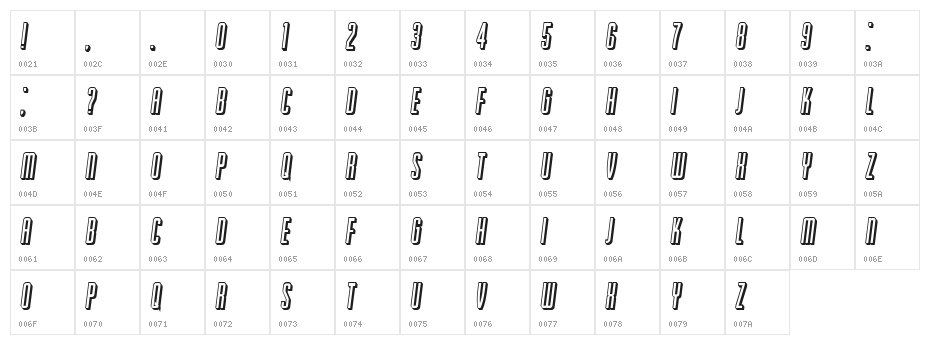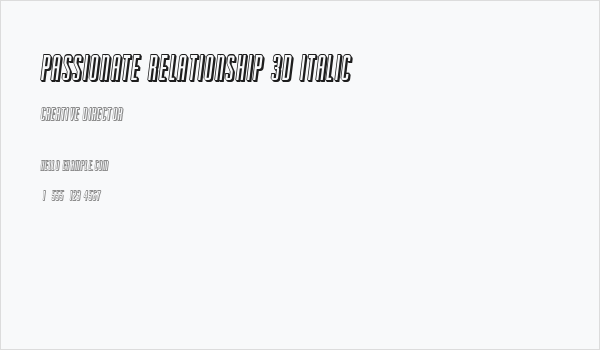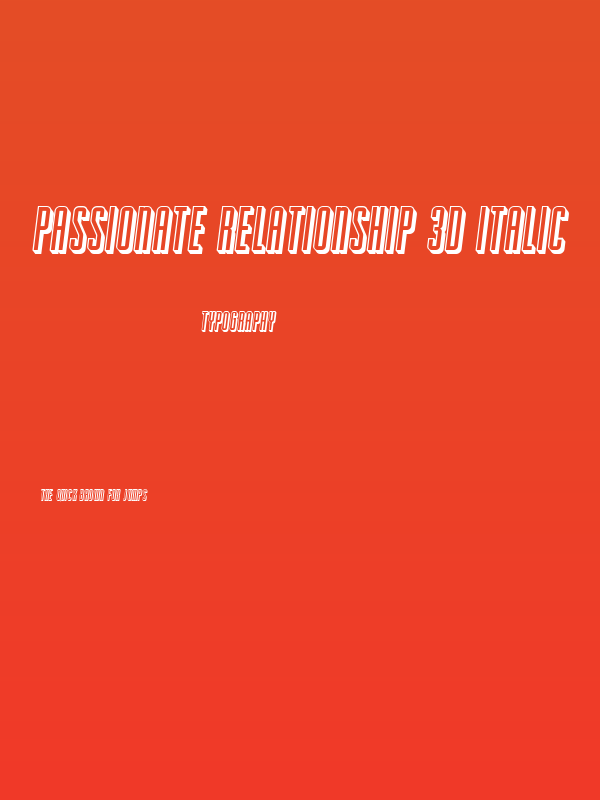
Passionate Relationship 3D Italic Font
Passionate Relationship 3D Italic Description
This font features a bold, three-dimensional design with a strong italic slant, giving it a dynamic and impactful appearance. The characters are outlined with a shadow effect, enhancing the 3D illusion and providing a sense of depth. Each letter is crafted with precision, maintaining a consistent width and height across the alphabet. The font's style is both modern and playful, making it suitable for eye-catching designs. The uppercase letters are particularly striking, with sharp angles and clean lines that contribute to its bold aesthetic. The numbers and special characters follow the same design principles, ensuring uniformity throughout the typeface.
| Proposed Projects | Ideal for posters, headlines, logos, and any project requiring a bold, attention-grabbing typeface. |